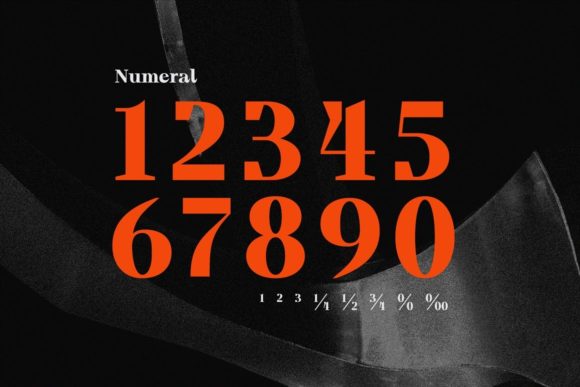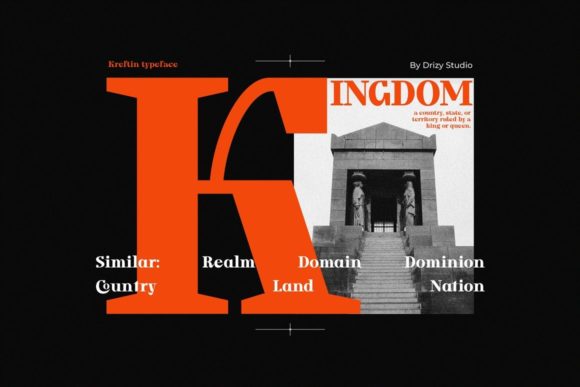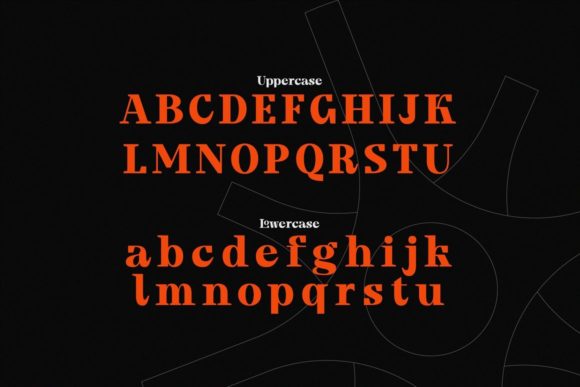
Introduction to Kreftin Font
Have you ever been working on a creative project, pouring your heart and soul into it, and then suddenly, you stumble upon the perfect font that elevates it to the next level? For many designers, that moment is what makes all the difference between a good design and a great one. And that’s exactly what the Kreftin Font offers – a bold, thick lettered and trendy serif font that can transform your projects with its unique style.
Whether you’re a seasoned designer or a crafty enthusiast, the Kreftin Font is a valuable resource that can add a professional touch to your work. Its high quality and versatility make it perfect for a wide range of creative projects, from branding and labels to cards and more. And the best part? It’s available for free download, allowing you to experiment with it and see the amazing results for yourself.
With its transparent background and sleek design, the Kreftin Font is sure to be a game-changer for your next project. So why wait? Add it to your design toolbox today and discover the incredible possibilities it has to offer.
Key Features of Kreftin Font
- High-quality design resource with a unique and modern aesthetic, perfect for creative projects.
- Available in a single size, with a resolution of 1024 x 1024 pixels, ensuring crisp and clear display.
- Unique characteristics include its bold and playful strokes, making it ideal for titles, headings, and other prominent design elements.
- Perfect for designers looking for a high-quality, free design resource to elevate their creative projects.
Honest Review: Kreftin Font
I recently stumbled upon the Kreftin Font and I must say it’s been a game-changer for my design projects. This free download has been a valuable addition to my design resource library.
What works well about the Kreftin Font is its versatility and high quality. The font is available in various weights, which makes it perfect for creative projects that require a specific style. The transparent background option is also a bonus, allowing me to easily customize the font to fit my design needs.
Here are some of the key features that I appreciate about the Kreftin Font:
- Transparent background option for easy customization
- Available in various weights for added versatility
However, I do have to mention a few limitations ⚠️:
- No bold or italic options available
- Limited character set, which can be a challenge for some design projects
- Choose a high-quality image with a transparent background to showcase the font’s texture and design.
- Use a design resource like Canva or Adobe Illustrator to create a visually appealing layout.
- Combine the Kreftin Font with other design elements, such as geometric shapes or minimalist graphics, to create a cohesive look.
- Use bold geometric shapes to contrast with the elegant Kreftin Font.
- Combine the font with minimalist graphics to create a clean and modern look.
- Experiment with different colors and textures to enhance the font’s unique design.
- Choose a meaningful quote that resonates with your audience.
- Use a design resource like Canva or Adobe Illustrator to create a visually appealing layout.
- Combine the Kreftin Font with a high-quality background image or a transparent background to create a striking effect.
- Use a subtle gradient or texture to enhance the font’s design.
Frequently Asked Questions About Kreftin Font
What file formats are available for the Kreftin Font?
The Kreftin Font is available in several file formats, including OTF, TTF, and WOFF. This allows designers to use the font in a variety of design applications, including Adobe Creative Cloud and Google Web Fonts.
What is the resolution of the Kreftin Font, and how can I ensure high-quality output?
The Kreftin Font is designed to be high-resolution, making it suitable for use in a variety of design applications. To ensure high-quality output, designers should use the font at a minimum size of 12 points and ensure that the font is embedded in their design files. Additionally, designers can use the font with a transparent background to create a seamless design.
Creative Projects with Kreftin Font
Typography Showcase with Kreftin Font
Create an eye-catching typography showcase featuring the unique Kreftin Font. This project highlights the font’s characteristics, such as its elegant and sophisticated design.
Kreftin Font Quote Graphics
Create inspiring quote graphics featuring the Kreftin Font. This project showcases the font’s high-quality design and versatility.